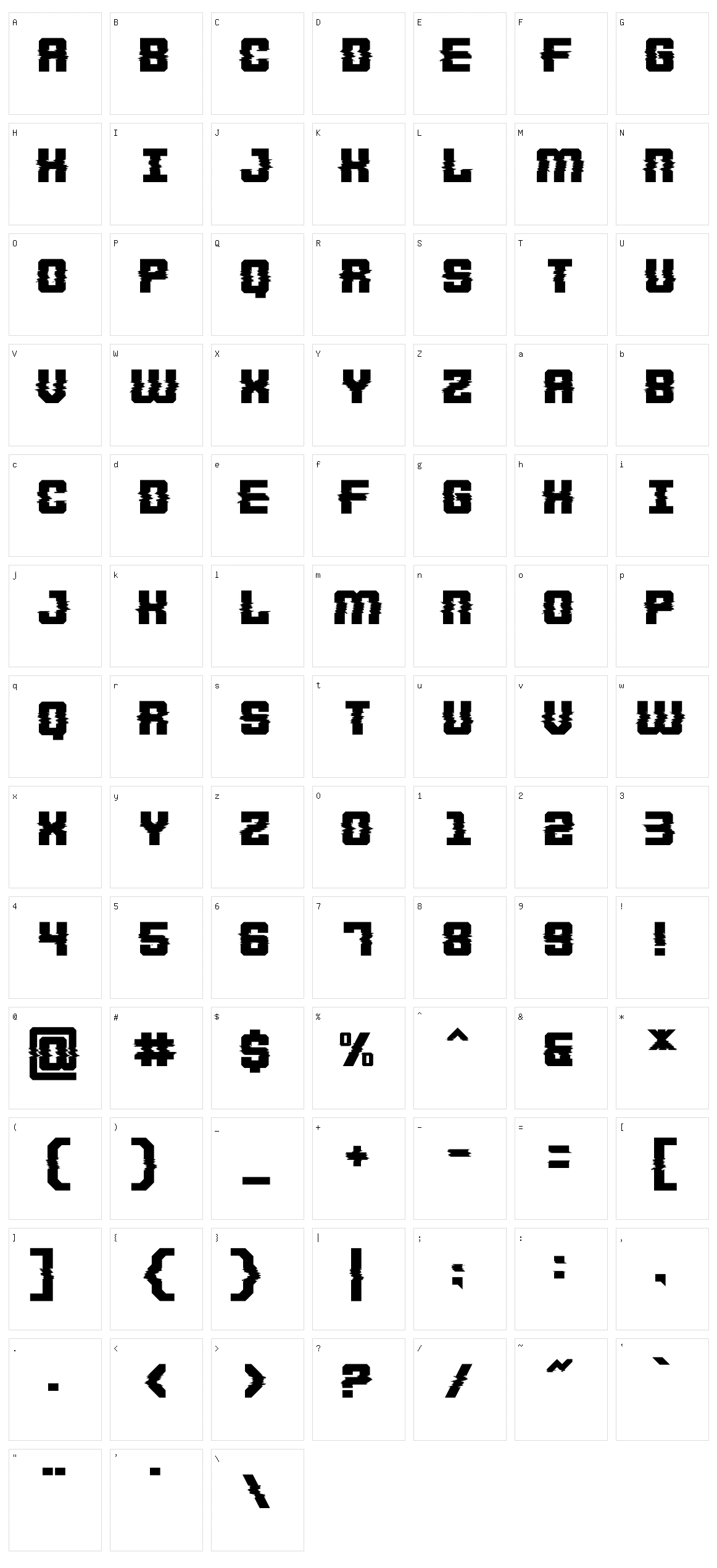
The free font Deadlist is carefully designed by Jayde Garrow, showcasing a thoughtful balance of creativity and usability and falls under the Distorted font style. When you download the ZIP file, it contains only 38.7 KB of font files, making it lightweight and quick to download. Please review the license details below to understand permitted usage and distribution rights. If license information is not available, we recommend using this font for personal projects only or contacting the author directly for commercial usage permissions.